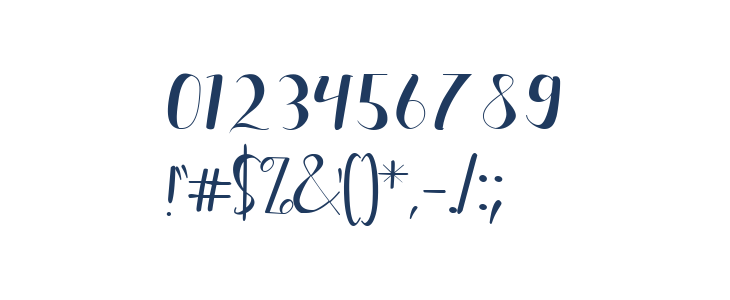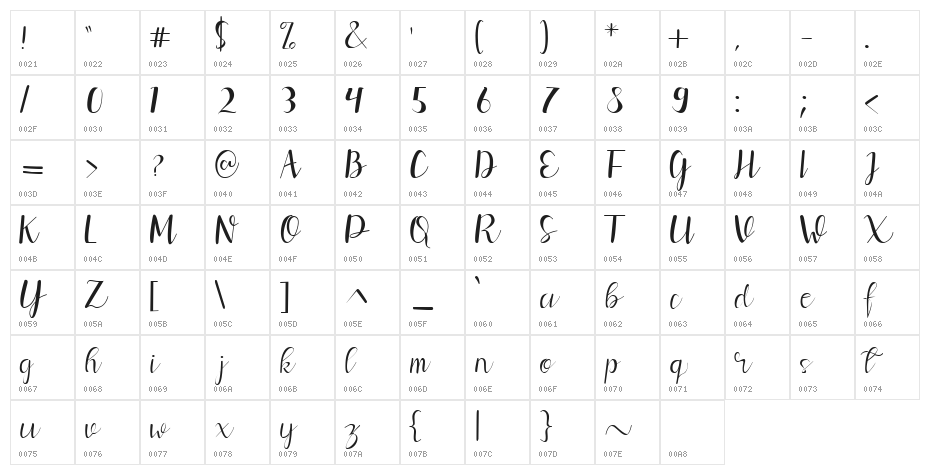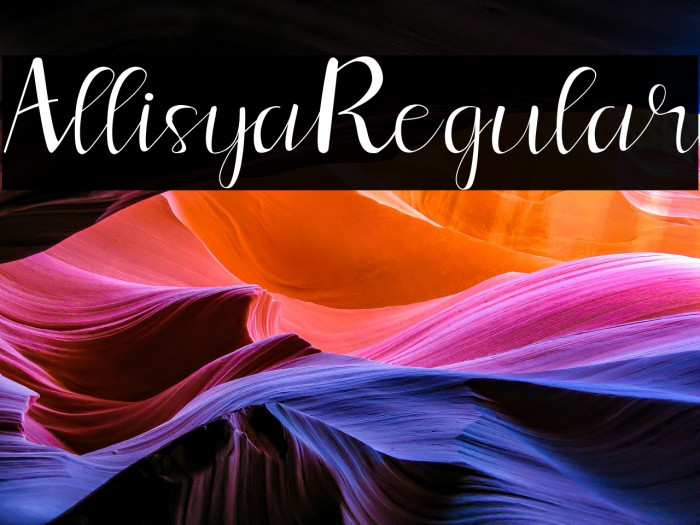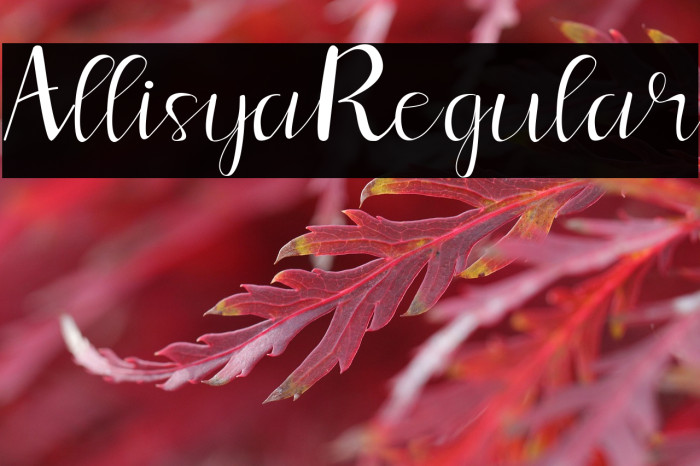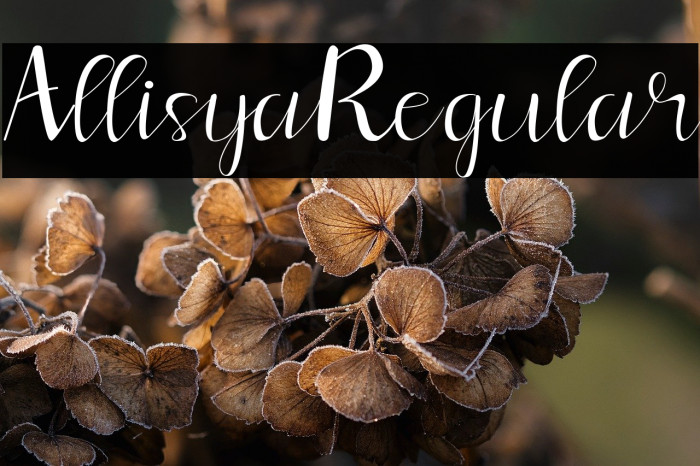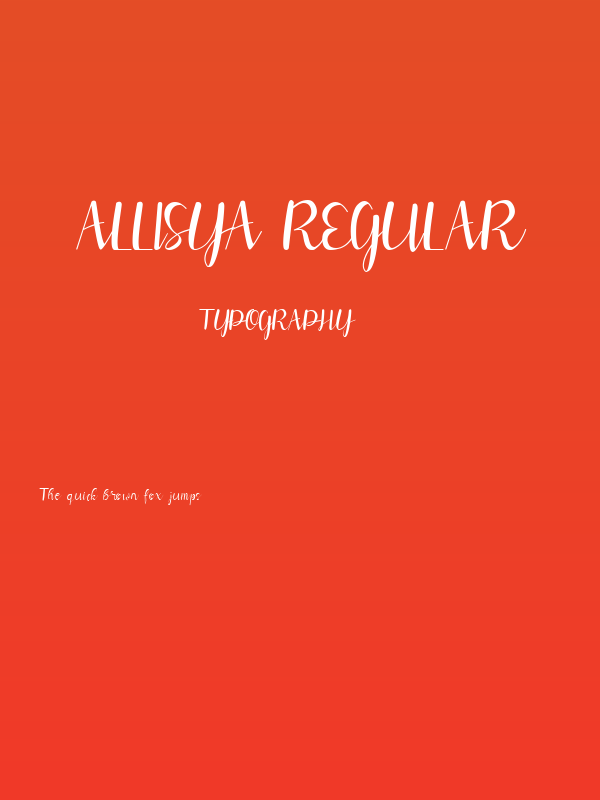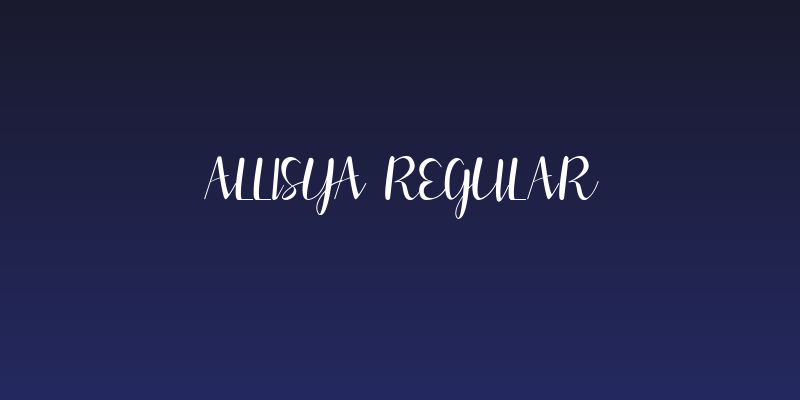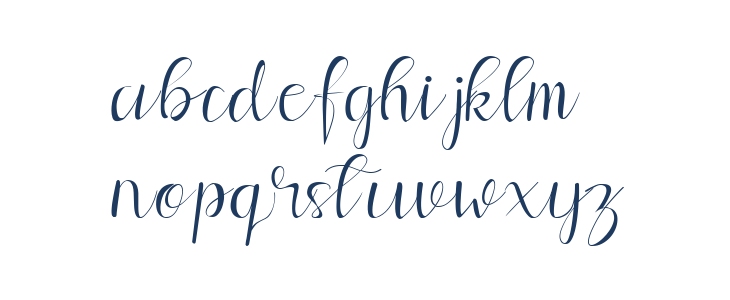
Allisya Regular Font
Allisya Regular Description
This font features an elegant and flowing script style, characterized by its smooth, cursive strokes and a sense of fluidity. The uppercase letters are bold and slightly slanted, giving a dynamic and sophisticated appearance. The lowercase letters maintain a consistent flow, with delicate loops and curves that enhance its graceful aesthetic. The numerals are stylishly integrated with the same cursive flair, ensuring a cohesive look across all characters. Special characters are thoughtfully designed to match the overall script style, making it versatile for various design applications.
| Proposed Projects | Ideal for wedding invitations, elegant branding, greeting cards, and decorative quotes. |